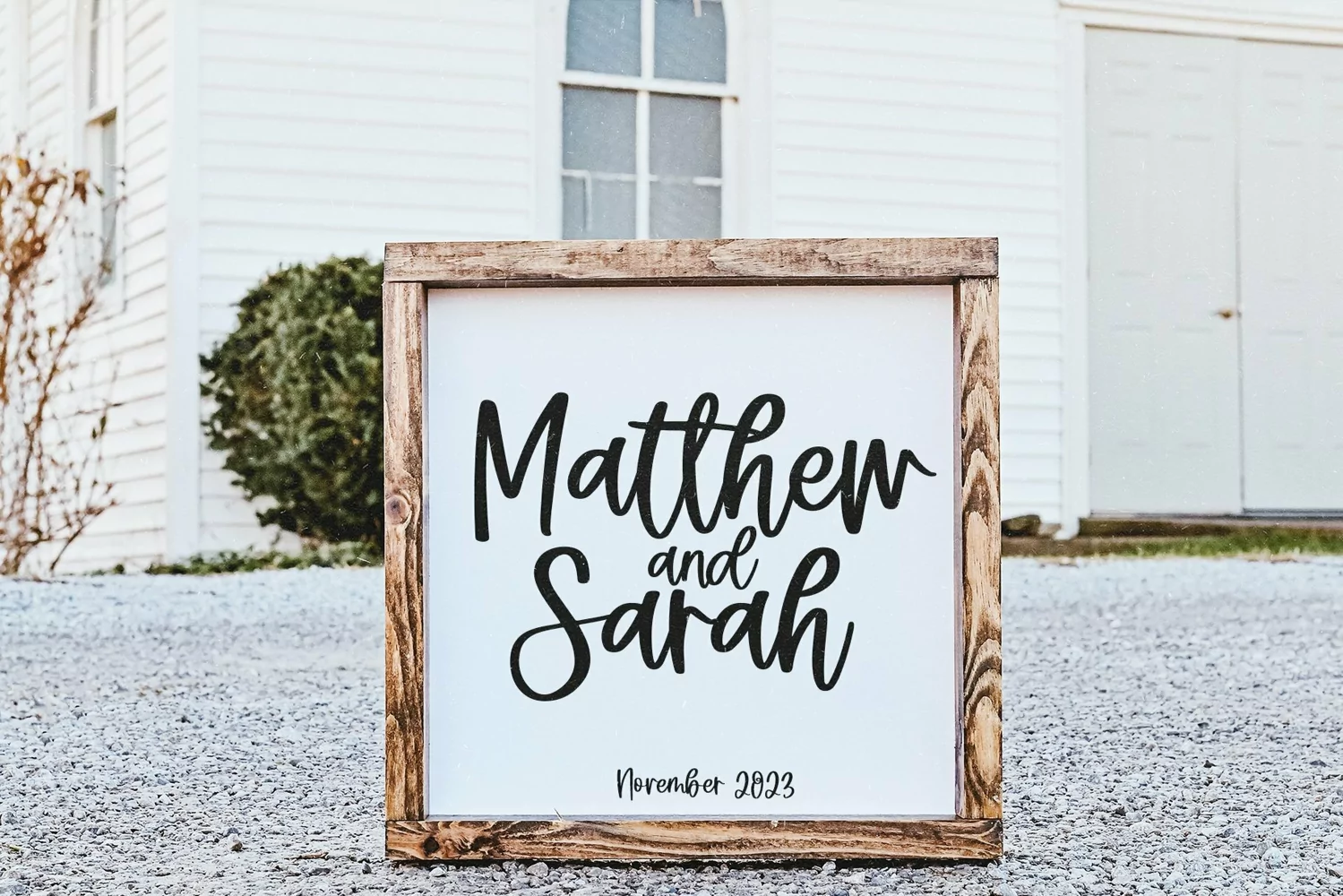
Web Font Rosebay is a modern handwritten script font.
This font is perfect for wedding decor, invitations, farmhouse signs, craft projects, svg designs, shirts, branding and more!